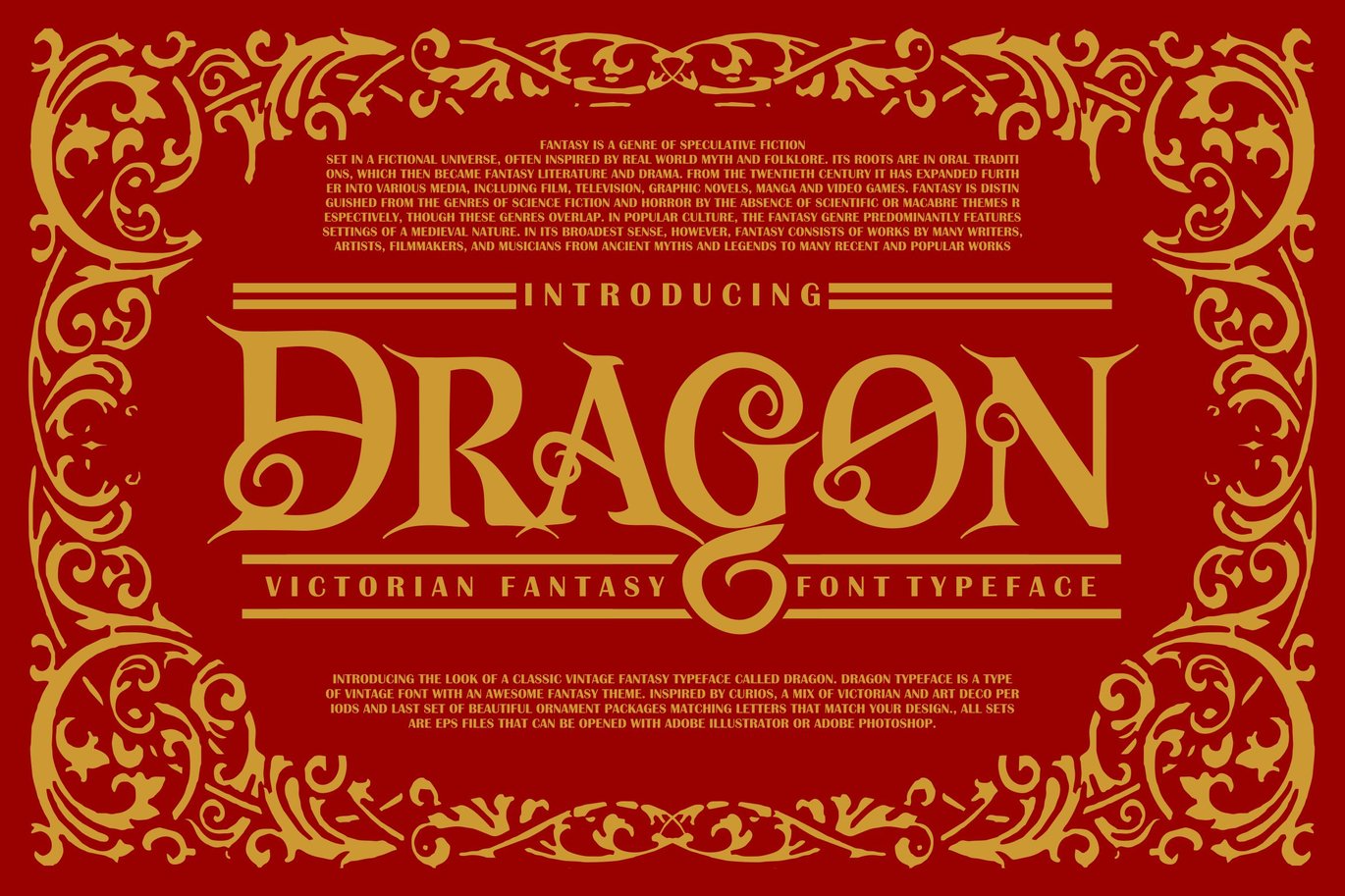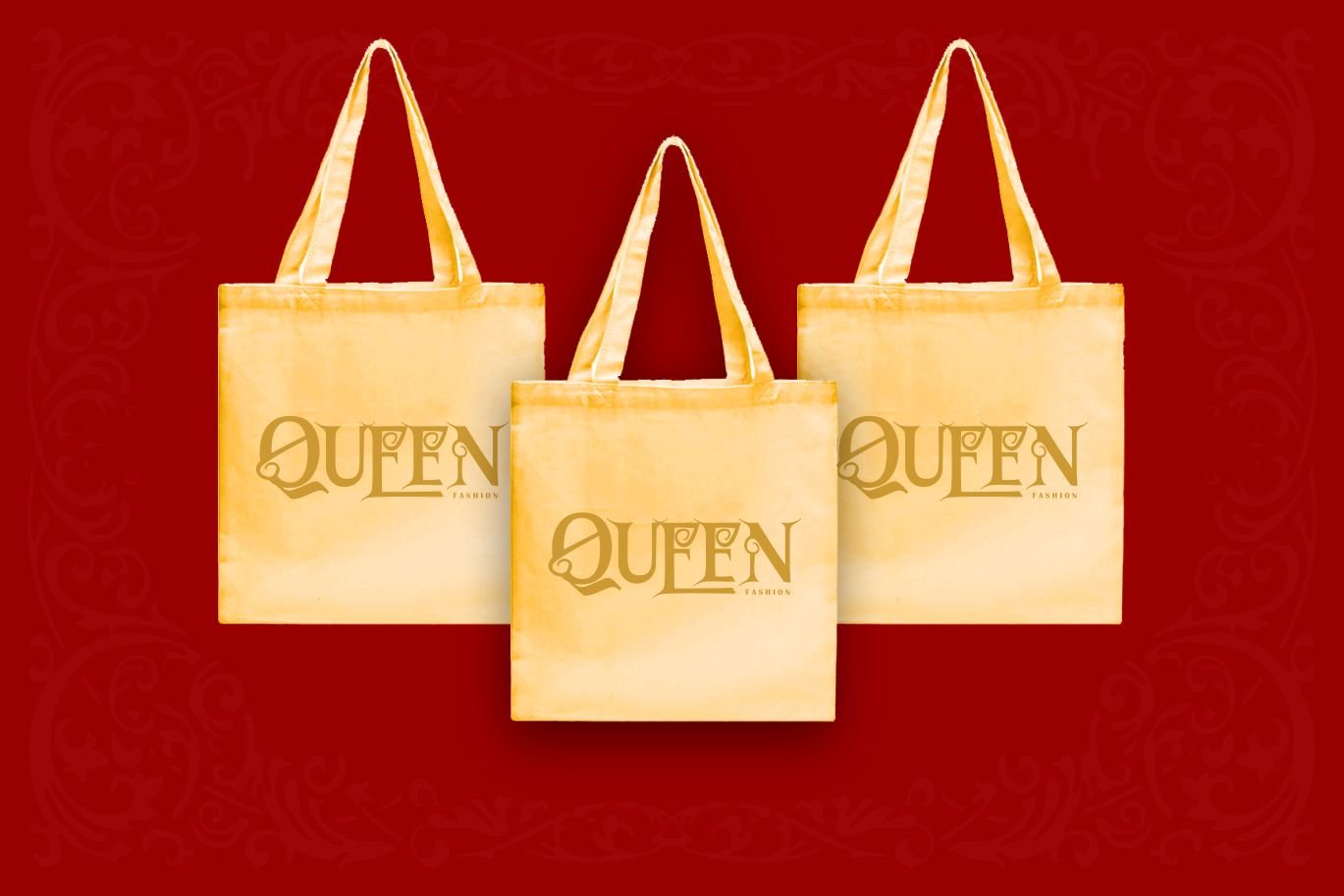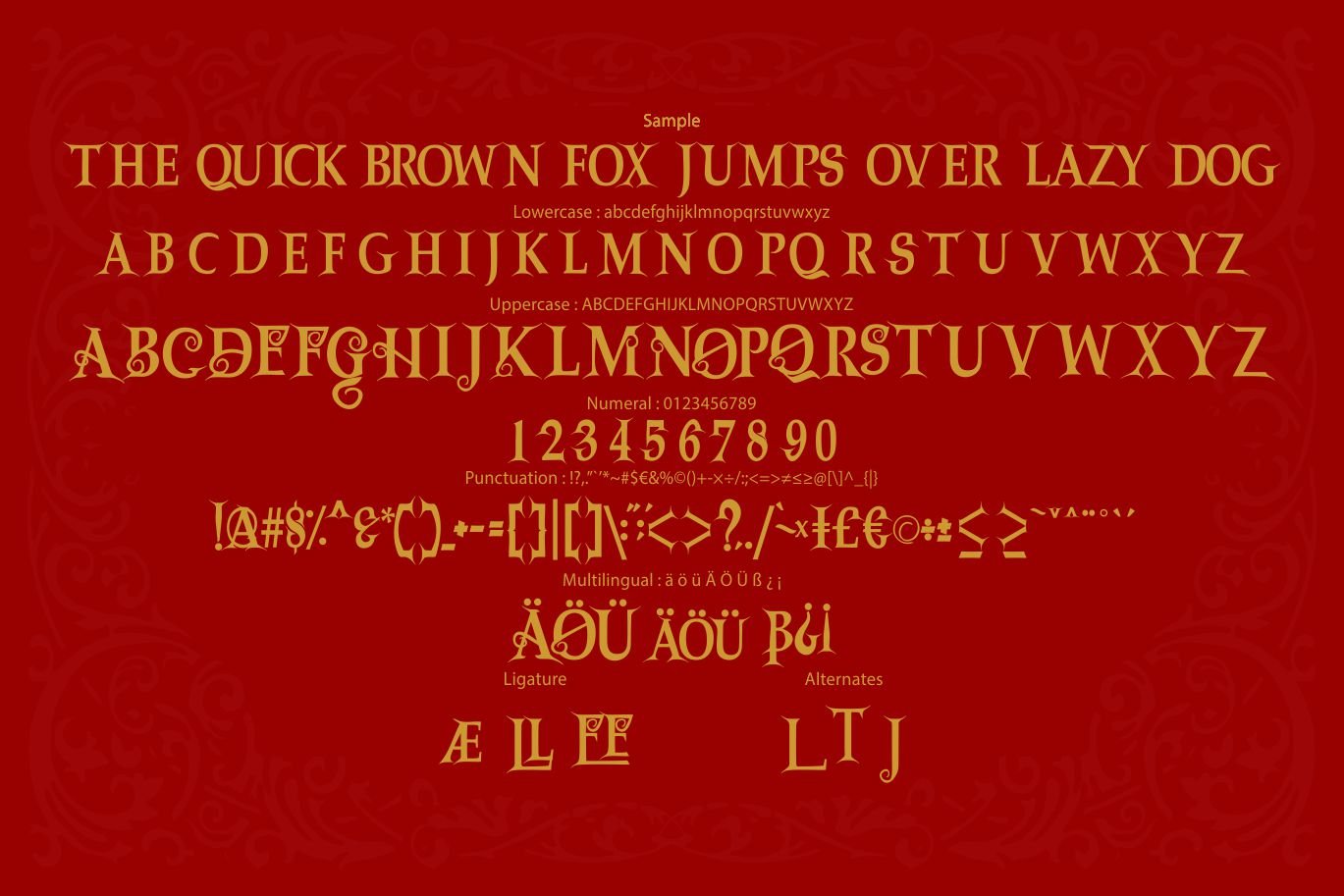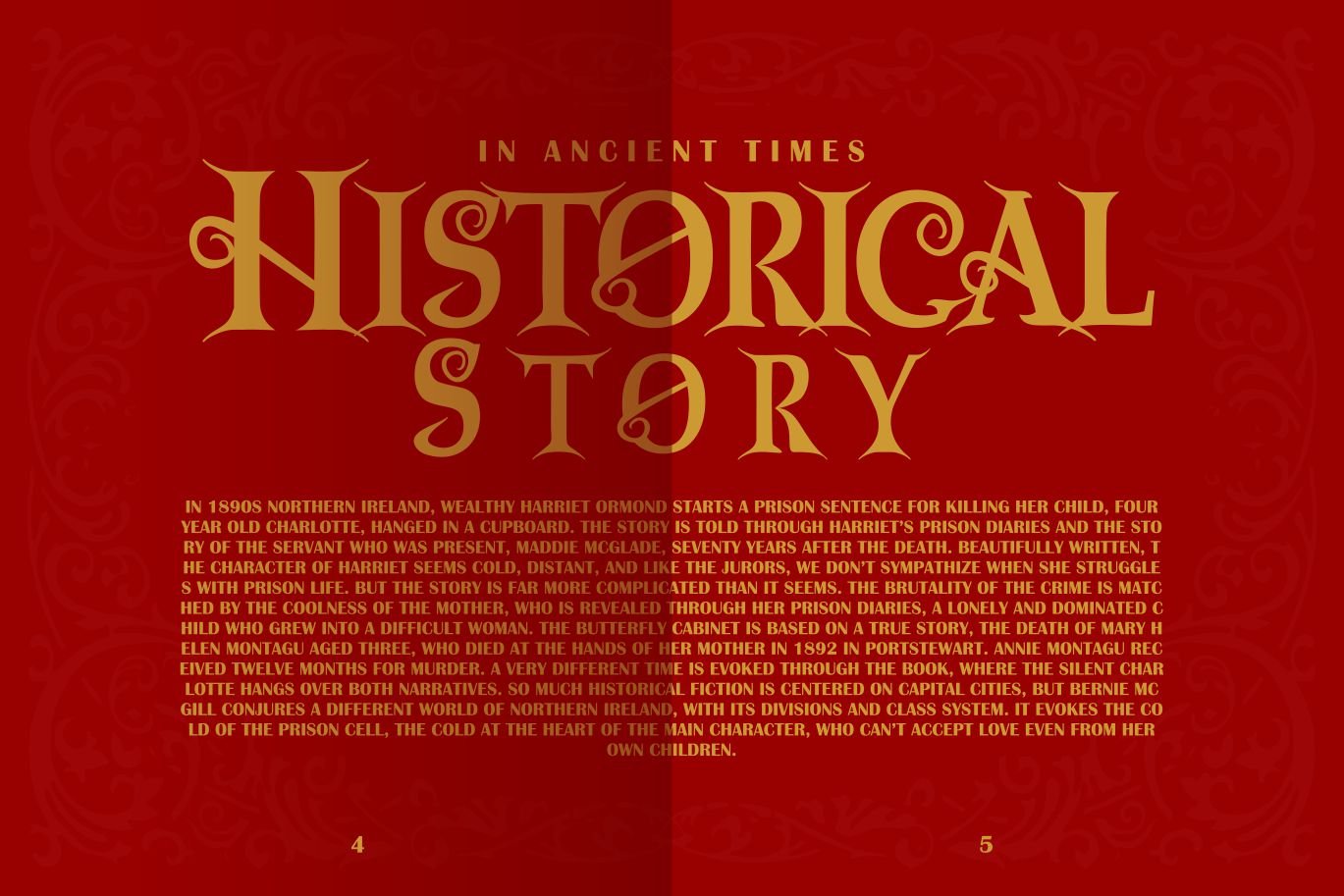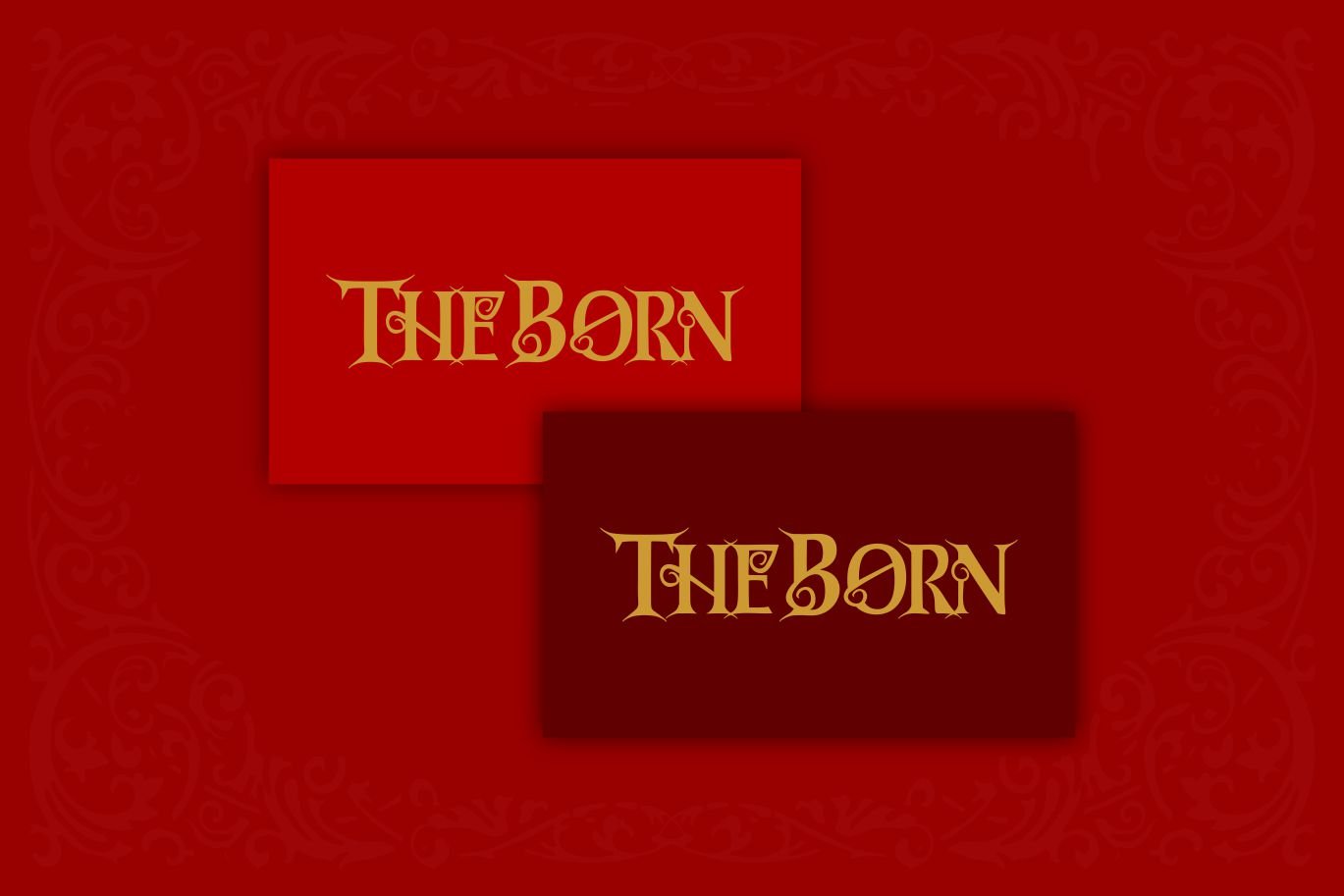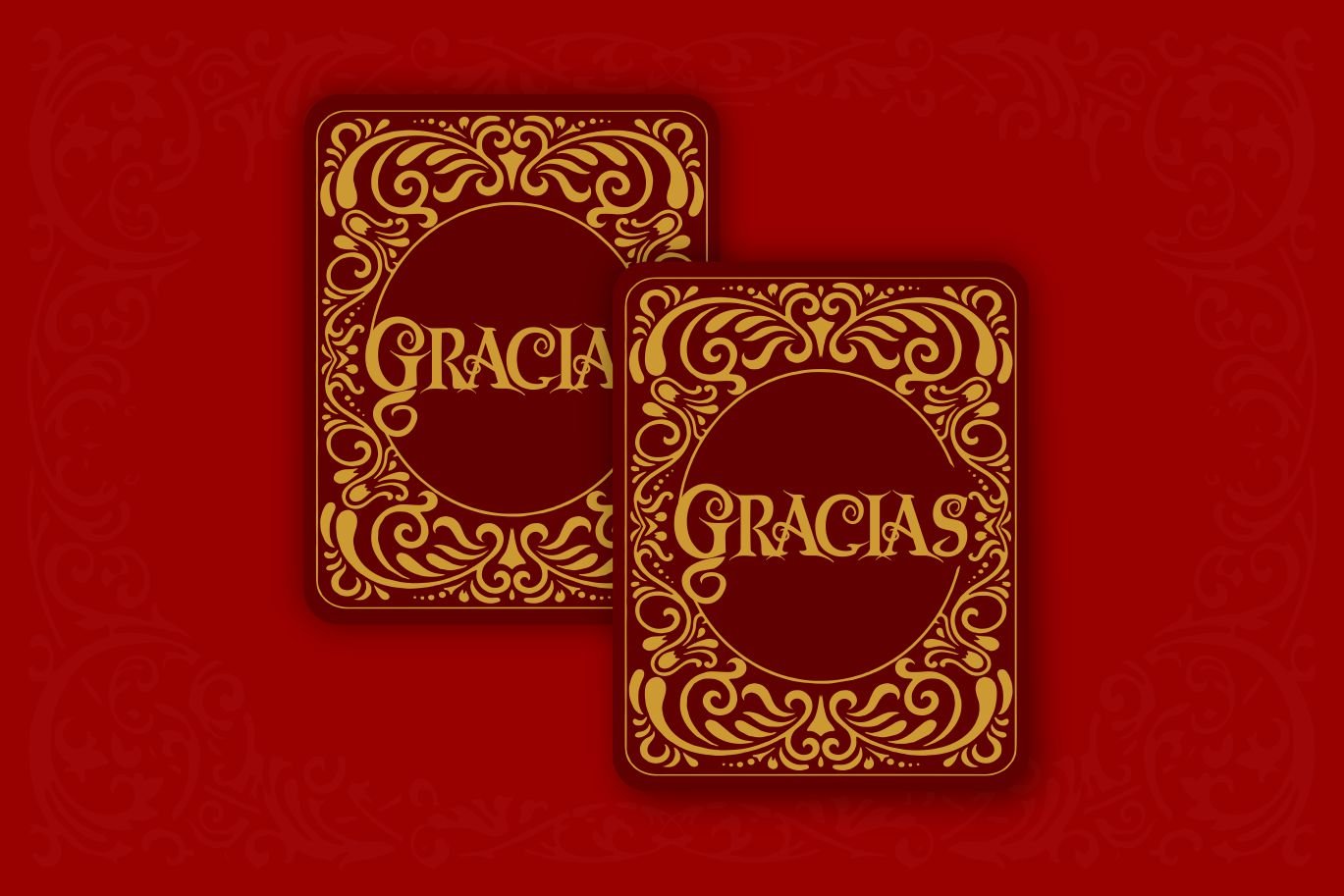
Dragon | Victorian Font Typeface
Dragon | Victorian Font Typeface with a calligraphy style, So beautiful on invitation like greeting cards, branding materials, business cards, quotes, posters, and more!